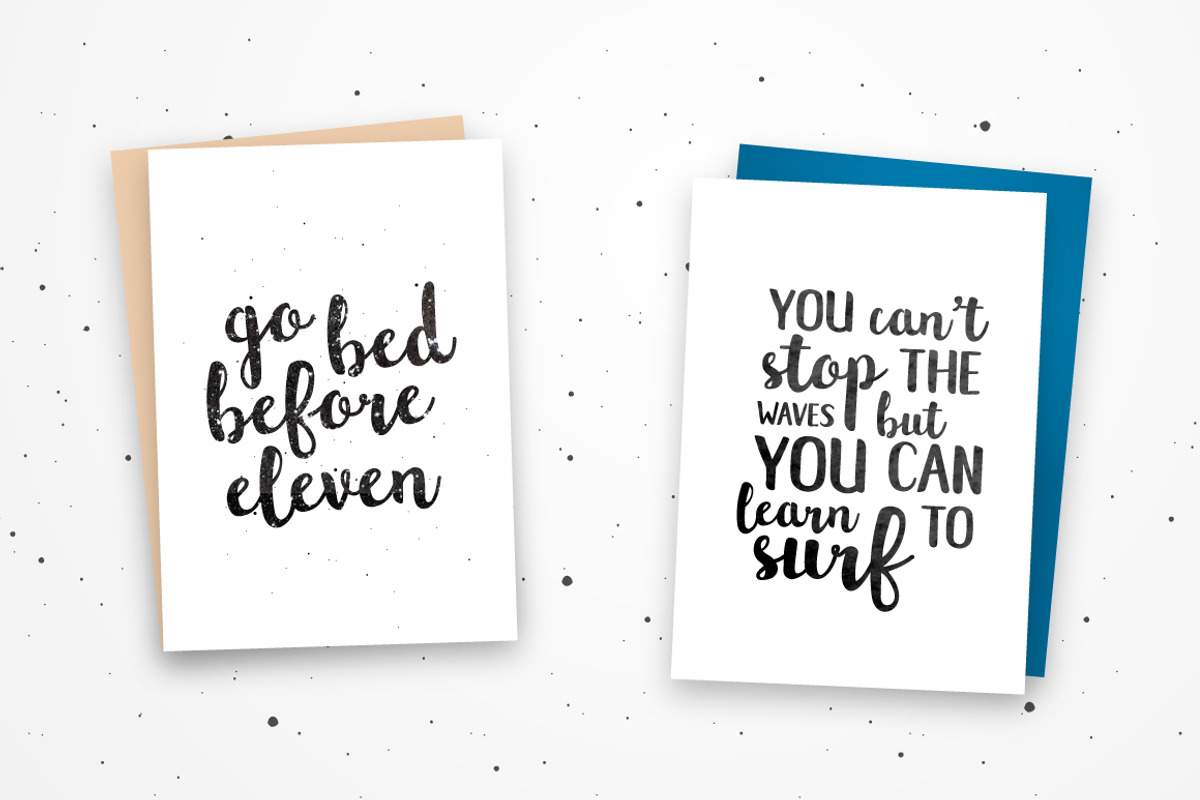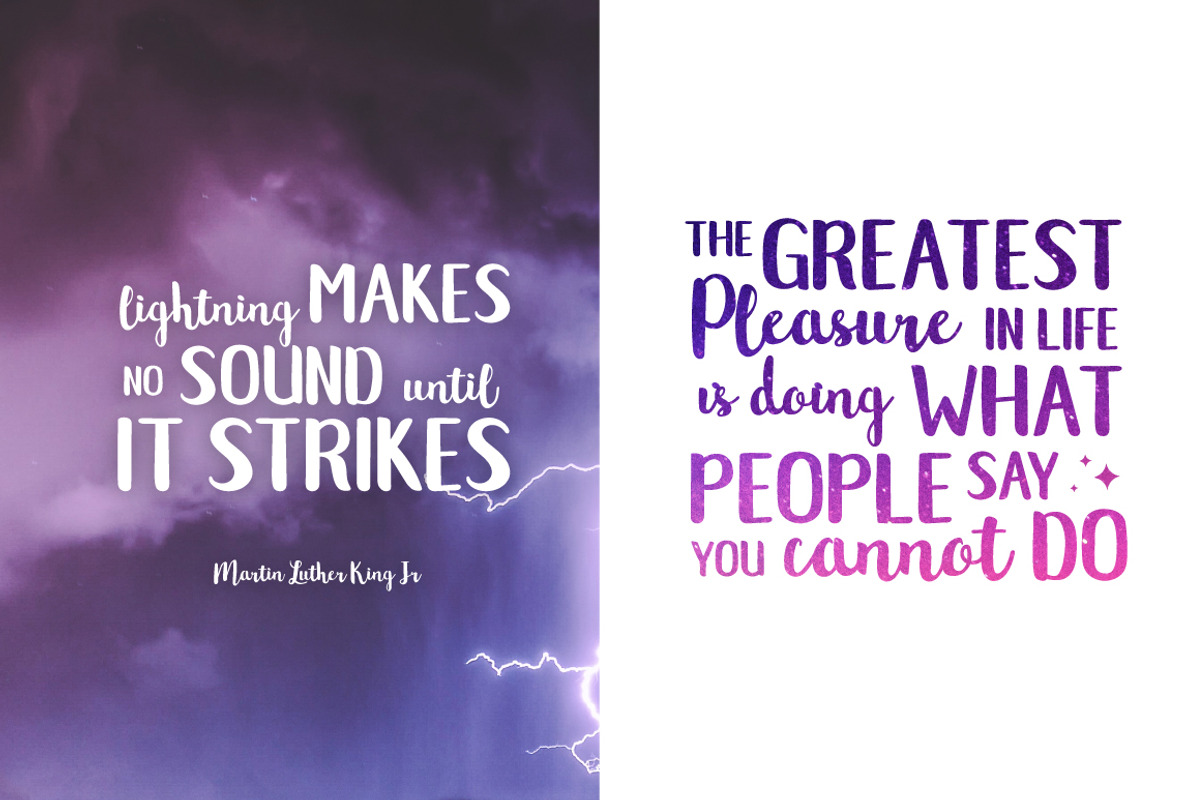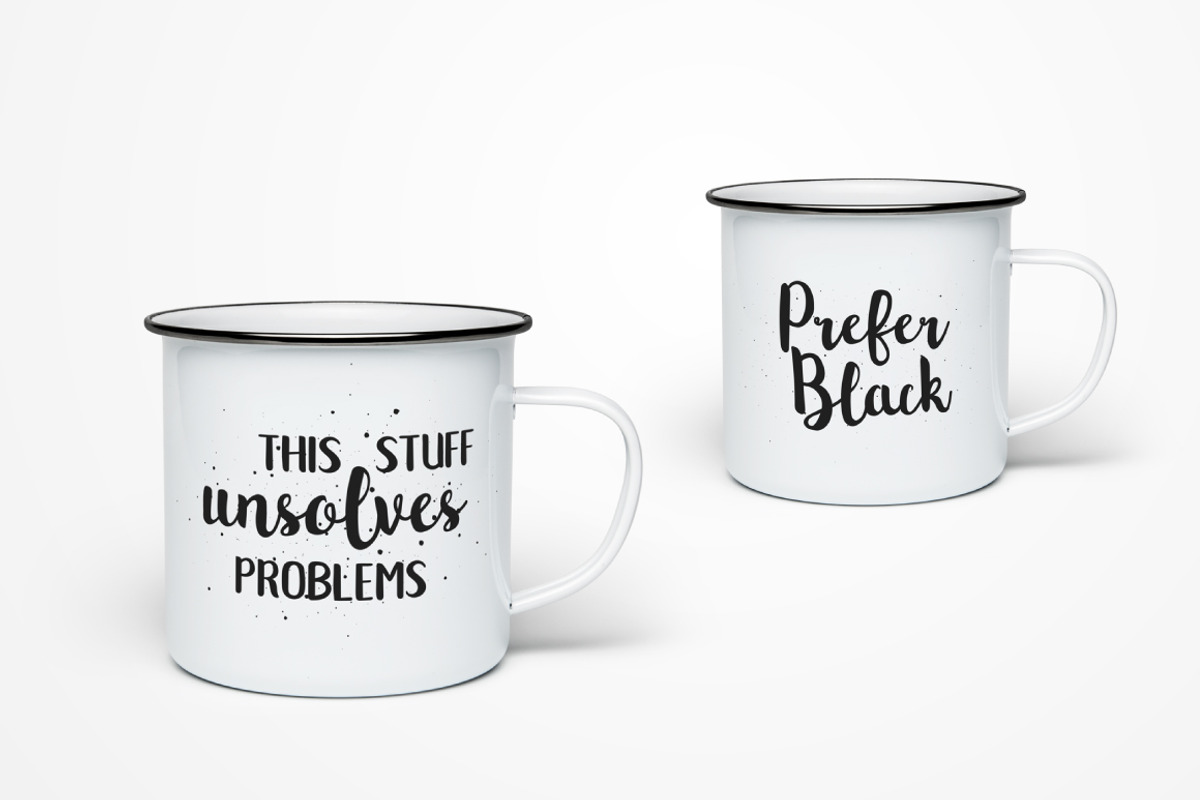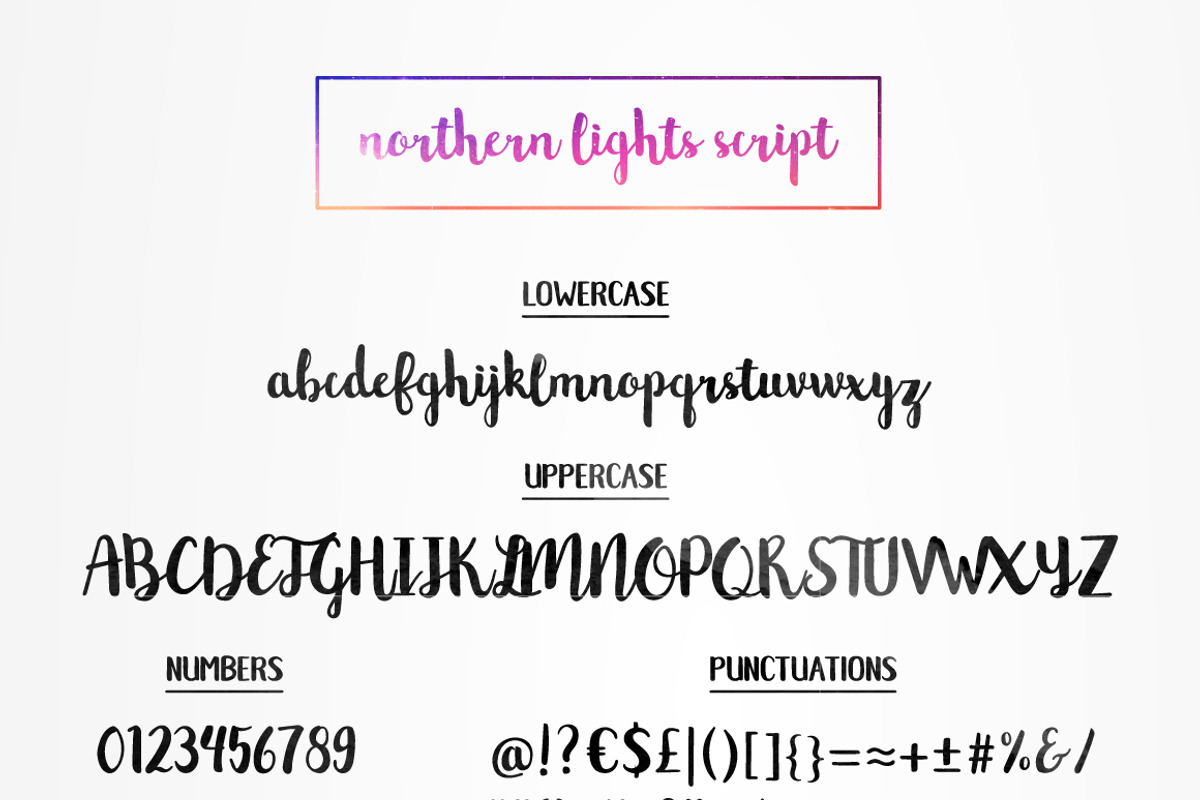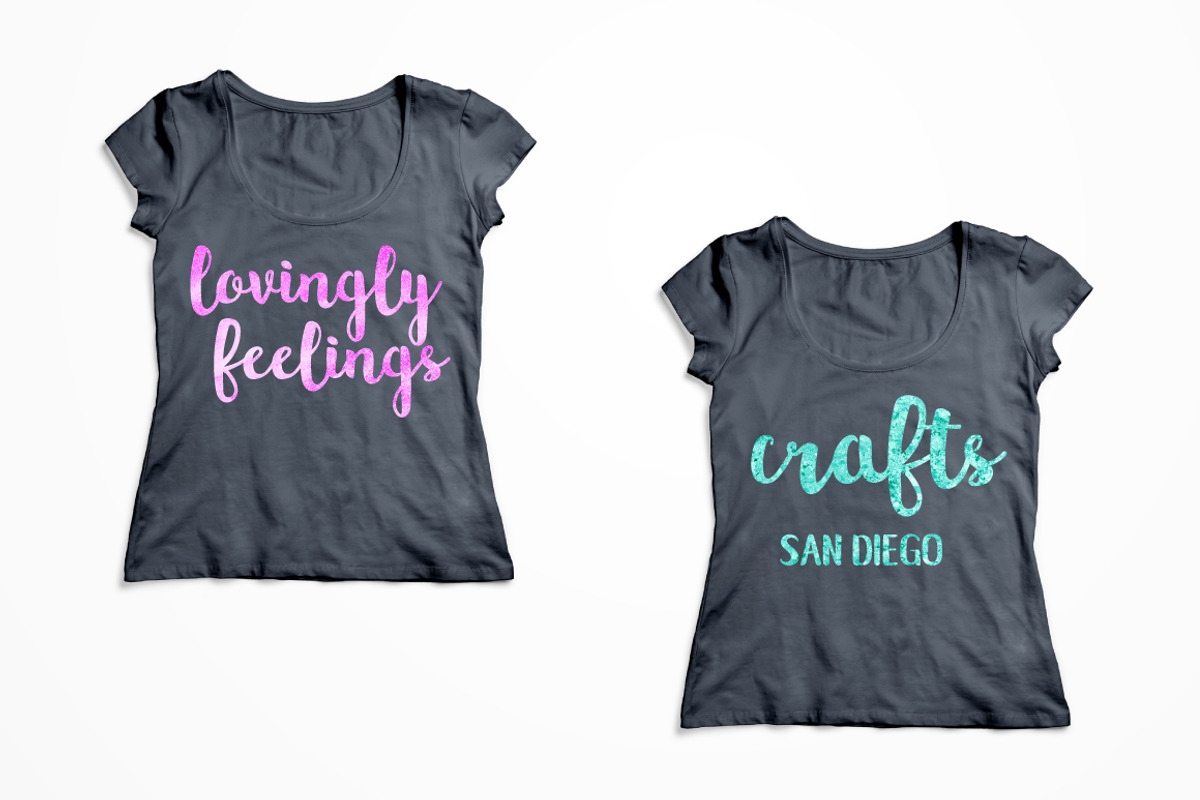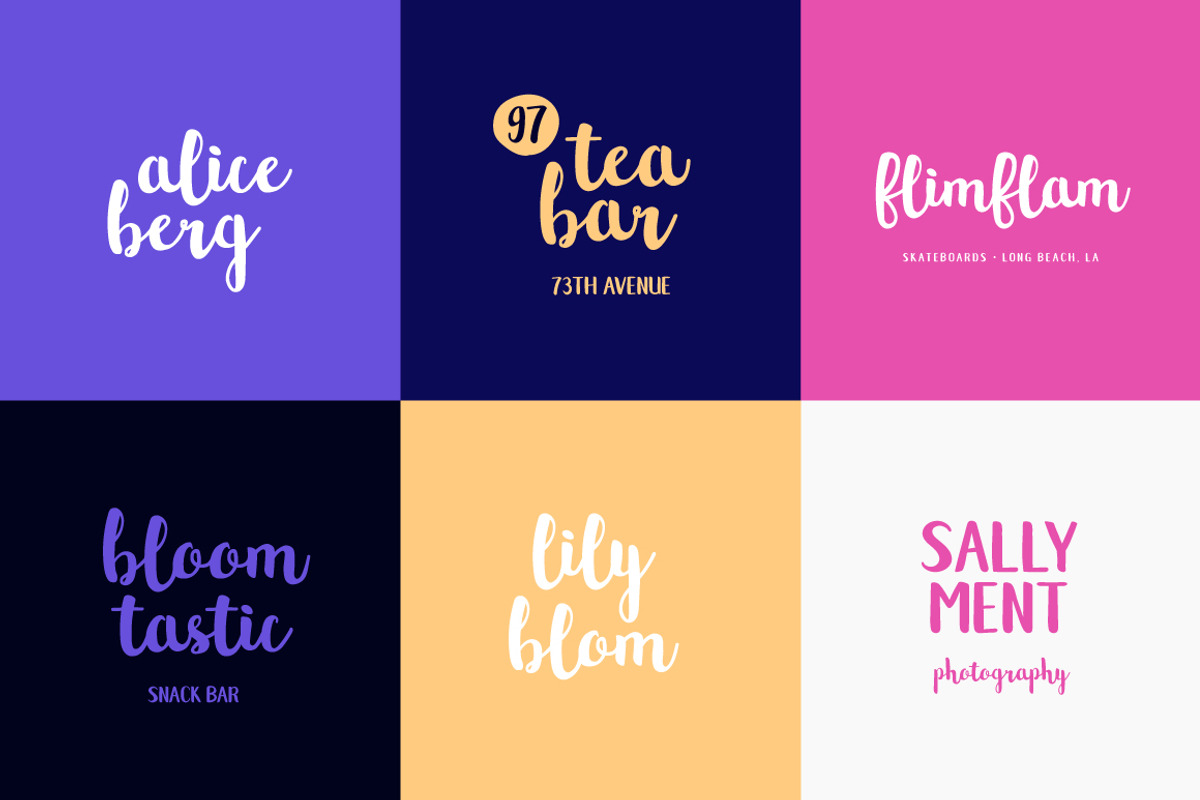
Northern Lights Brush Script Font
Northern Lights Brush Script Font by Mats-Peter Forss is a font selected for branding, posters, packaging, typography.
- Extra Caps Font All caps version comes with the pack.
- Multilingual Support Supports most European characters.
- Northern Lights Regular
- Northern Lights CAPS
Northern Lights Brush Script Font by Mats-Peter Forss fits naturally into Branding, posters, packaging, typography.